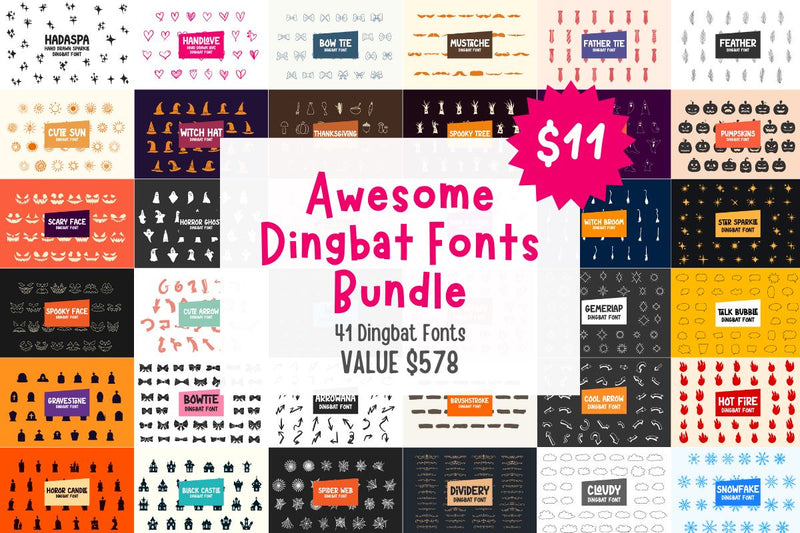
Awesome Dingbat Fonts Bundle
Featuring 41 stunning dingbat fonts, this bundle is the perfect choice for all your Craft, Cricut, silhouette, and creative project needs. Each font possesses unique characteristics that will bring your designs to life.
Combining design expertise and modern technology, the ‘Awesome Dingbat Fonts Bundle’ delivers a luxurious and elegant collection of dingbat fonts with a variety of shapes that reflect boundless creativity. Whether you’re looking for decorative elements for scrapbooking, adorable icons for greeting cards, or unique embellishments for merchandise designs, you’ll find everything you need within this bundle.
Each font in this bundle has been meticulously crafted by industry-leading graphic design experts. With their skilled hands, every letter, symbol, and icon will inspire your imagination and add a special touch to your projects. By using the ‘Awesome Dingbat Fonts Bundle,’ you can effortlessly create captivating, professional, and impressve designs in seconds.